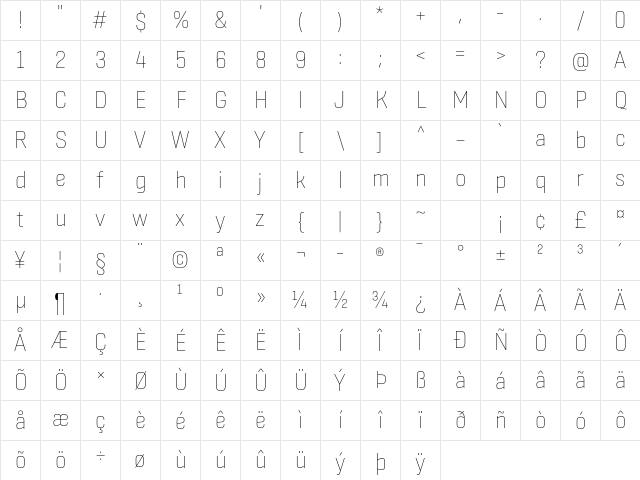
Fester ExtraLight Regular
Foundry: Fontfabric LLC
Designer: Ventsislav Dzhokov
Design Context for Fester ExtraLight
Fester ExtraLight is a composed and adaptable typeface that performs quietly and consistently across a wide range of design contexts. Its slender proportions lend an understated elegance to any composition.
Who designed the Fester ExtraLight Regular font?